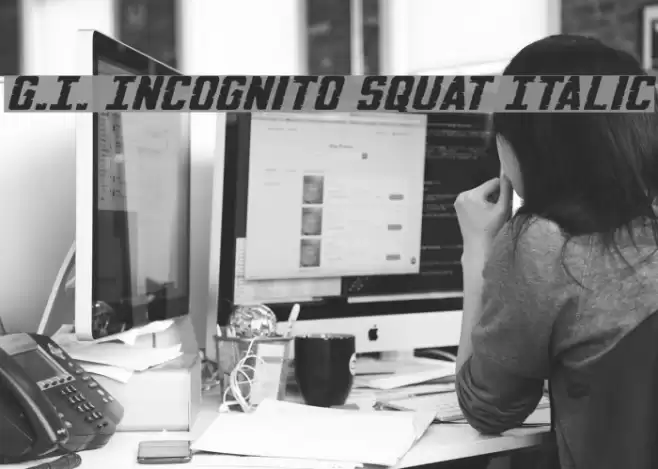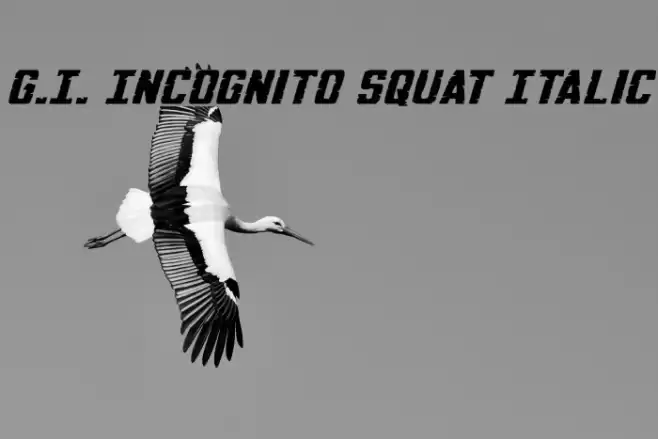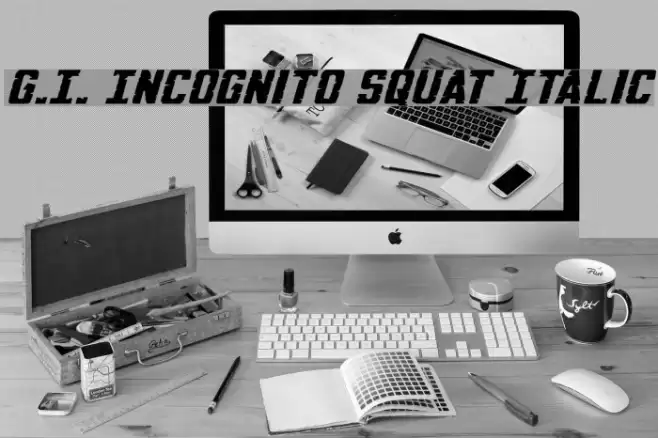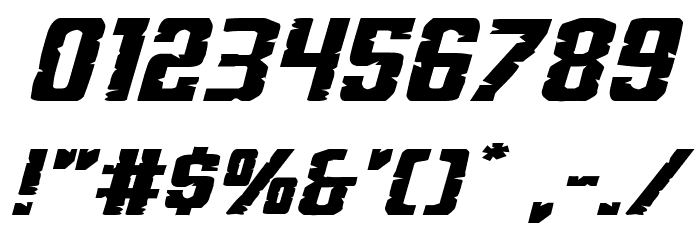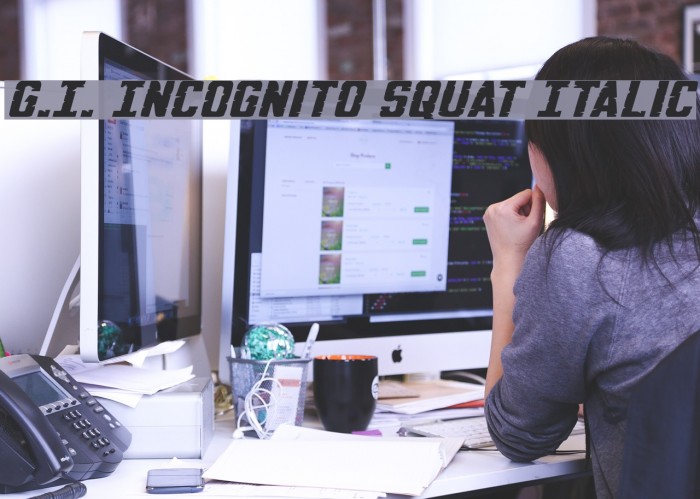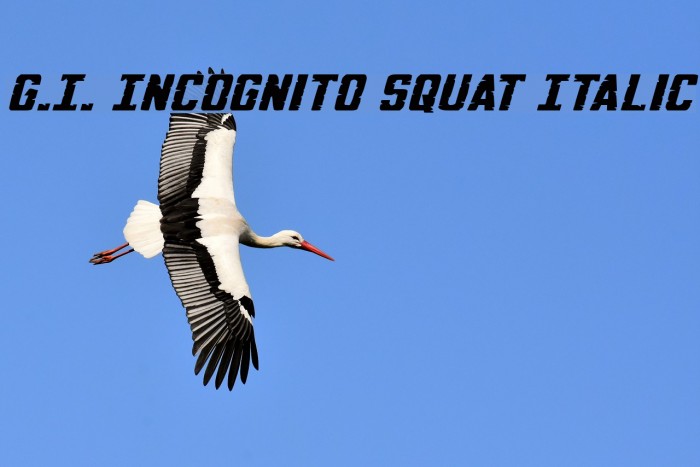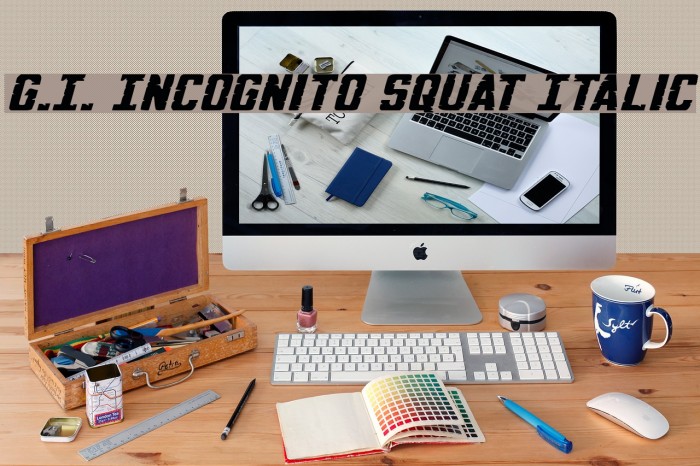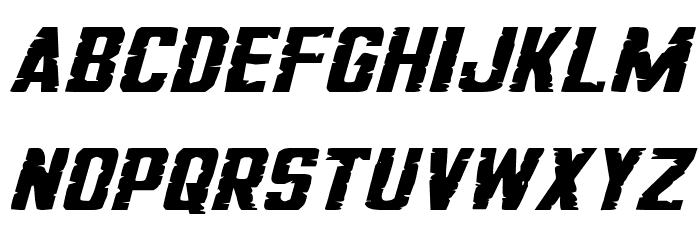
G.I. Incognito Squat Italic Font
G.I. Incognito Squat Italic Description
This font exhibits a bold, italicized style with a distinct, rugged appearance. The characters are heavily stylized with sharp, angular edges and a distressed texture that gives them a worn, gritty look. The uppercase and lowercase letters maintain a consistent slant, enhancing the dynamic and energetic feel of the typeface. The numbers and special characters follow the same design principles, ensuring uniformity across all glyphs. This font's unique aesthetic makes it stand out, making it suitable for projects that require a bold and impactful visual statement.
A bold, italicized font with a rugged, distressed texture and angular design from Distorted Eroded fonts.
- Proposed Projects: Ideal for branding, posters, sports team logos, and any design needing a bold, dynamic impact.
- Overall Style: Modern, Decorative